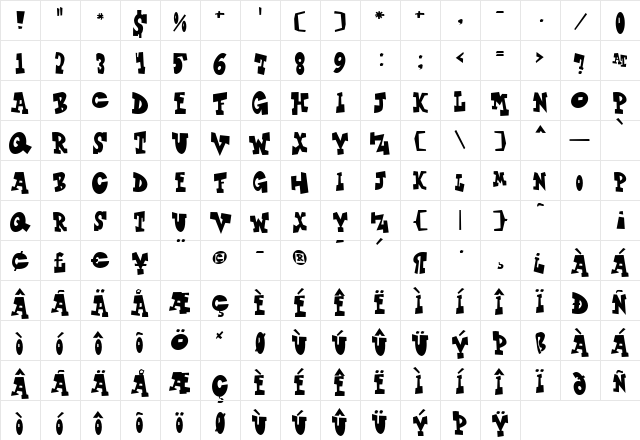
Complete FinerDiner Regular glyph index. Displaying only characters natively supported by FinerDiner Regular font.
FinerDiner is a composed and adaptable typeface that performs quietly and consistently across a wide range of design contexts.